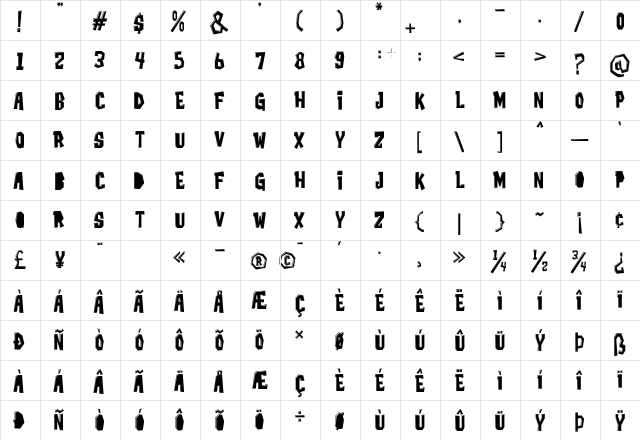
Rockidz Demo Regular
Design Context for Rockidz Demo Typeface
Rockidz Demo is a composed and adaptable typeface that performs quietly and consistently across a wide range of design contexts.